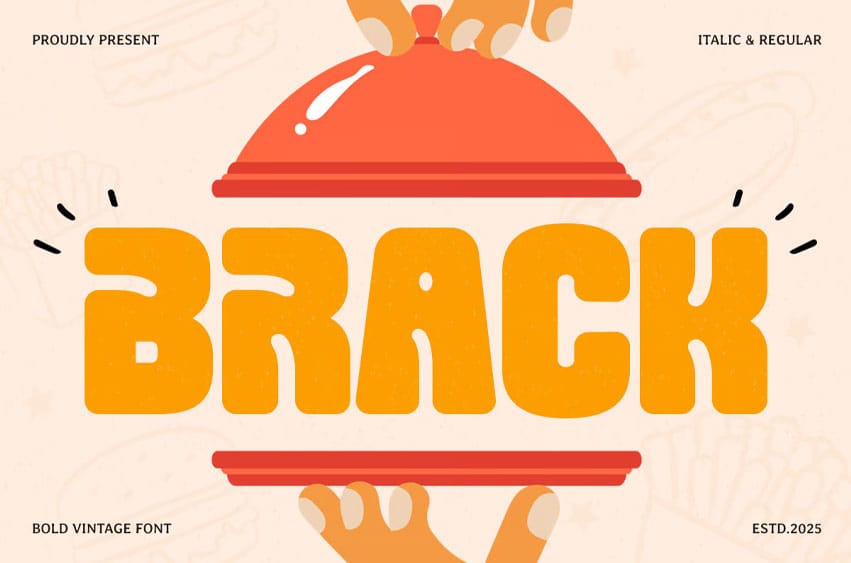
Brack Font is a bold and flavorful vintage font inspired by classic food signage, retro menus, and nostalgic branding. Its strong letterforms and rustic charm make it the perfect choice for restaurants, cafés, bakeries, diners, food packaging, and menu designs.
Designed to bring a warm, handcrafted feel, Brack combines bold strokes with subtle vintage details, ensuring a strong presence and easy readability. Whether you’re crafting a logo for a burger joint, a retro-style coffee shop menu, or nostalgic food packaging, this font delivers a deliciously classic aesthetic.
Capture the essence of vintage food culture with Brack, a font that adds character and authenticity to any culinary-themed project.
Brack – Bold Food Vintage Font Features:
- Bold and rustic vintage typography
- Ideal for restaurant branding, café menus, and food packaging